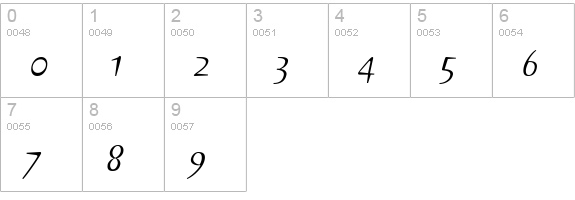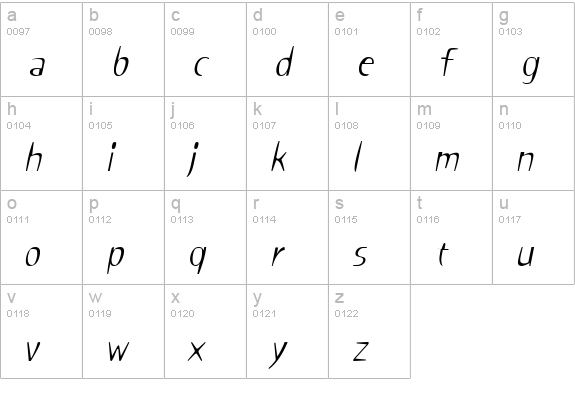
Sniff Italic Font Details
Sniff Italic is a distinctive, italic variant in the Sniff typeface family \xE2\x80\x94 well suited to design and typography projects.
Introducing Sniff Italic font, a sleek and stylish typeface that exudes sophistication and elegance. With its distinctively slender and curvaceous lines, Sniff Italic is perfect for adding a touch of refinement to any design project. This exquisite font offers a unique blend of modernity and classic charm, making it suitable for a wide range of applications. Whether you're designing a logo, crafting a wedding invitation, or creating eye-catching headlines, Sniff Italic will effortlessly elevate your work to new heights of visual appeal. One of the most enticing aspects of Sniff Italic font is its versatility. Its delicate and graceful letterforms effortlessly adapt to various design styles, allowing you to create a multitude of captivating compositions. From bold and impactful headlines to delicate and intricate script designs, Sniff Italic can do it all with finesse. And the best part? Sniff Italic is available for free! That's right, this remarkable font can be downloaded at absolutely no cost from FontsMarket.com. Simply visit the website, search for Sniff Italic, and experience the sheer delight of adding this exceptional typeface to your font library. So, why wait? Unleash your creativity and unlock the endless possibilities that Sniff Italic font has to offer. Download it now, and let your designs exude a sense of sophistication and refinement that will leave a lasting impression on your audience. Sniff Italic font is the epitome of elegance, and it's yours for the taking.